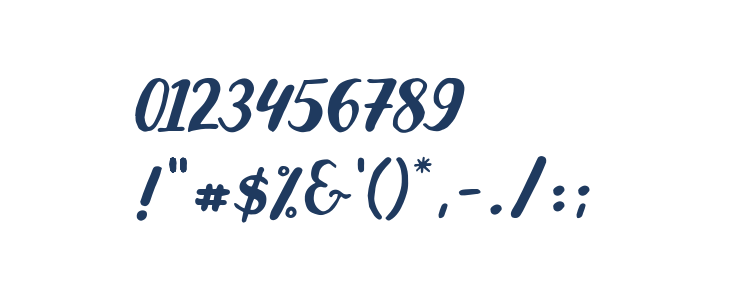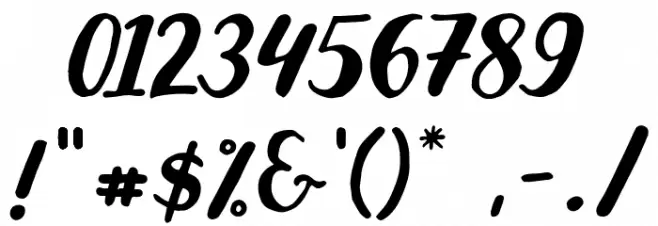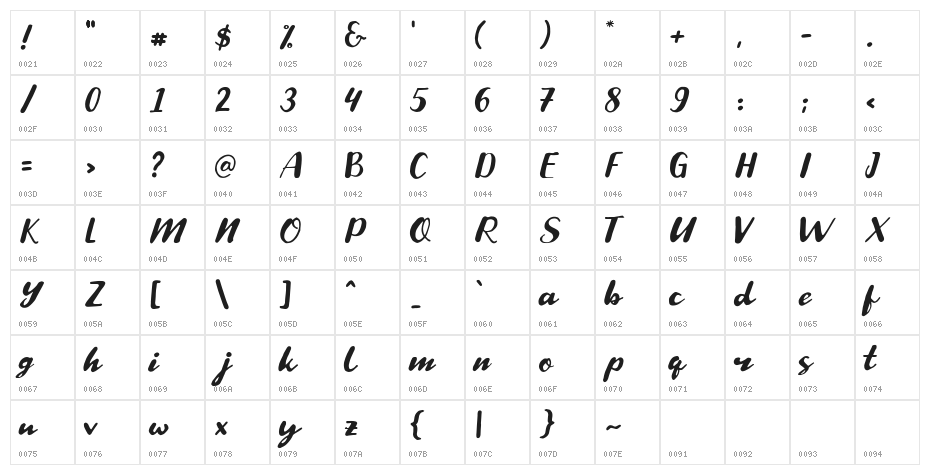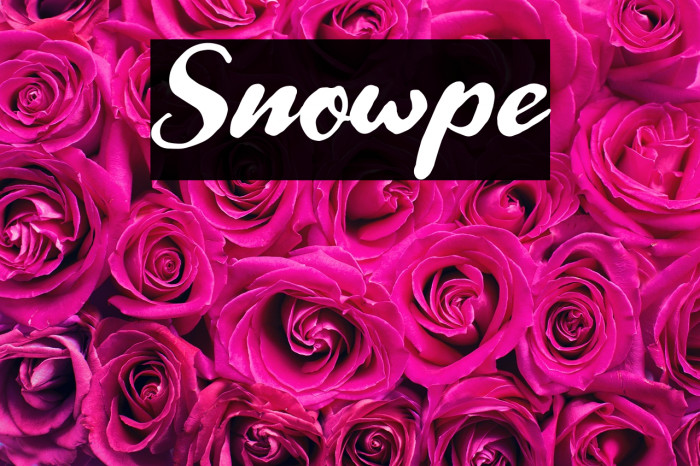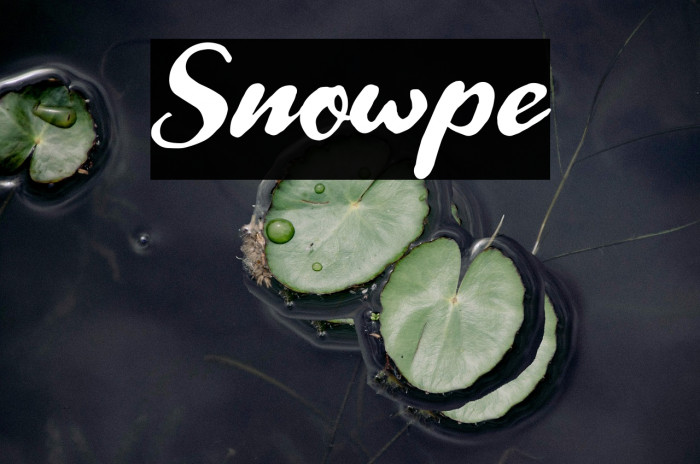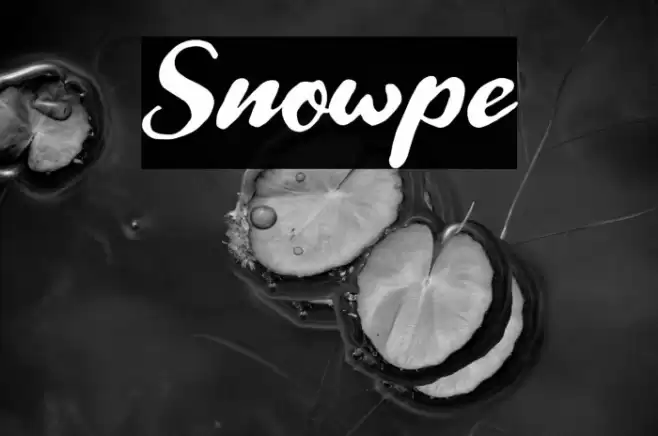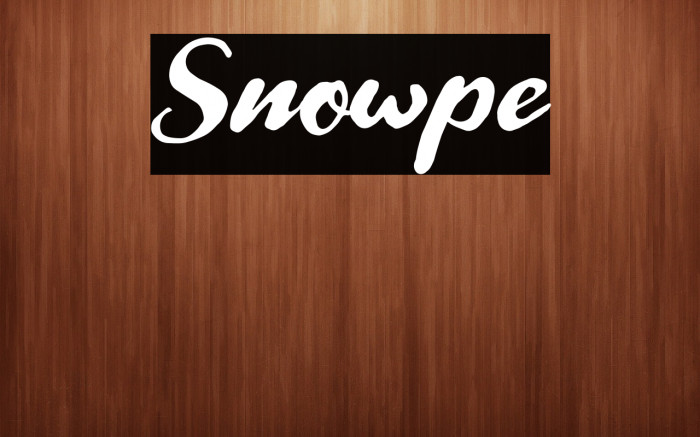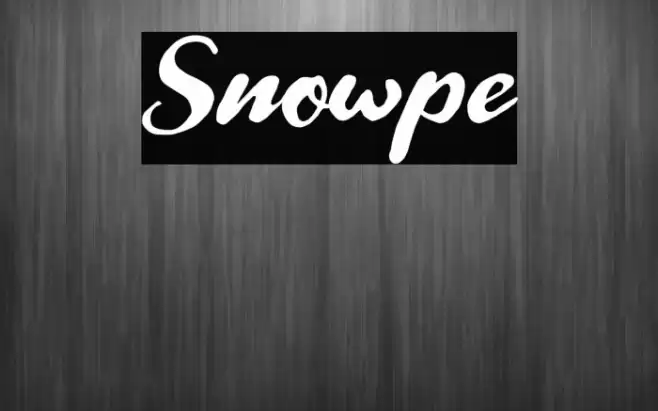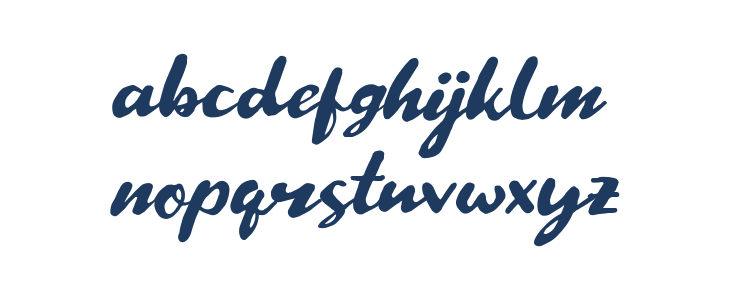
Snowpe Font
Snowpe Description
This font features a dynamic and flowing script style, characterized by its bold and expressive strokes. The uppercase letters are slightly slanted, giving a sense of movement and elegance. The lowercase letters maintain a consistent flow, with smooth curves and connections that enhance readability. The numerals are distinct and bold, matching the overall style of the alphabet. Special characters are creatively designed, adding a playful yet sophisticated touch. This font's unique style makes it suitable for a variety of creative applications.